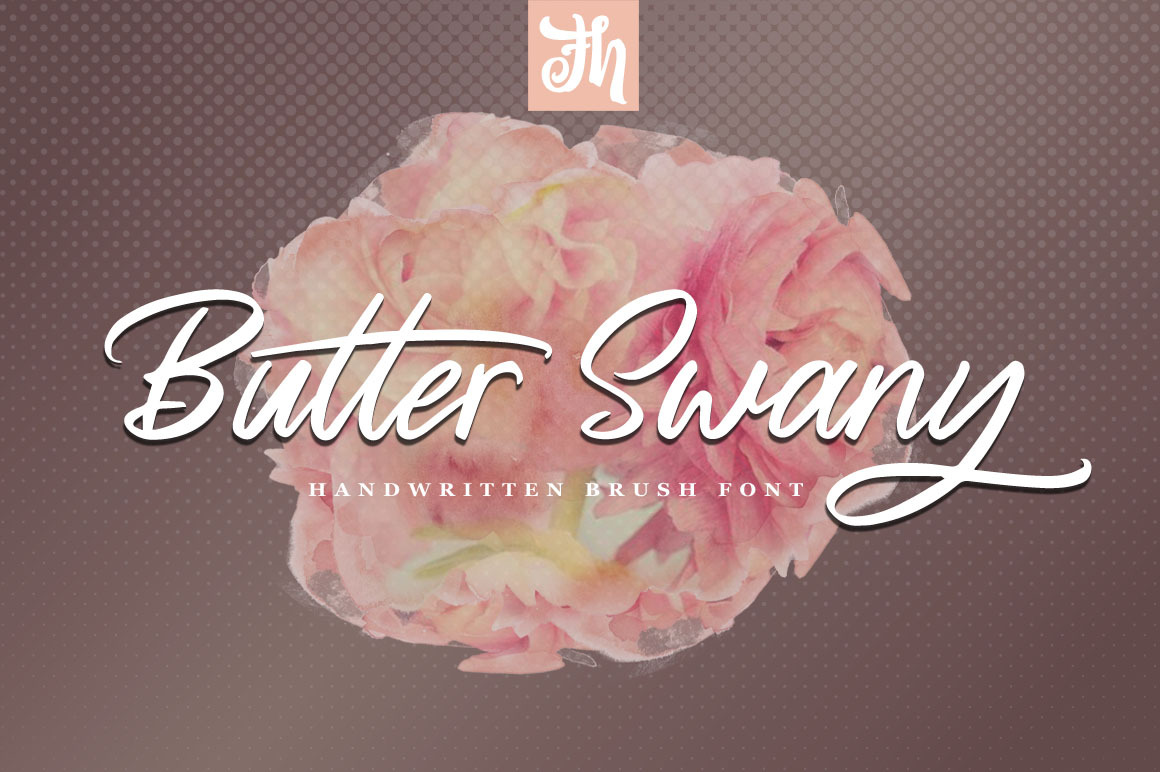
Butter Swany - Handwritten Font
Butter Swany is Script Font with Handlettering Brush Style, with opentype feature include of the font. Suitable for design, element design, wedding, event, t-shirt, logo, badges, sticker, and awesome work, etc...
Unique style fonts